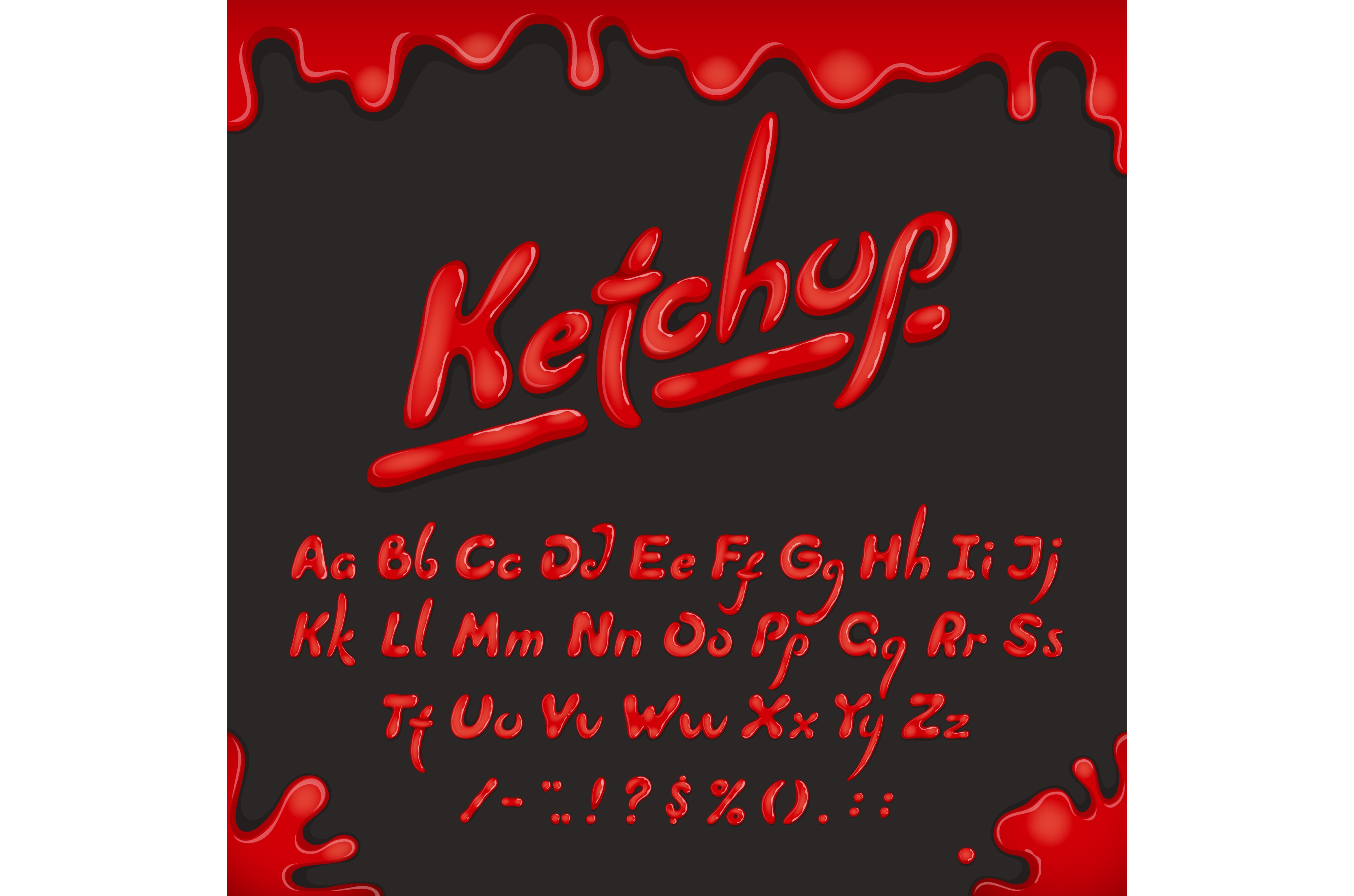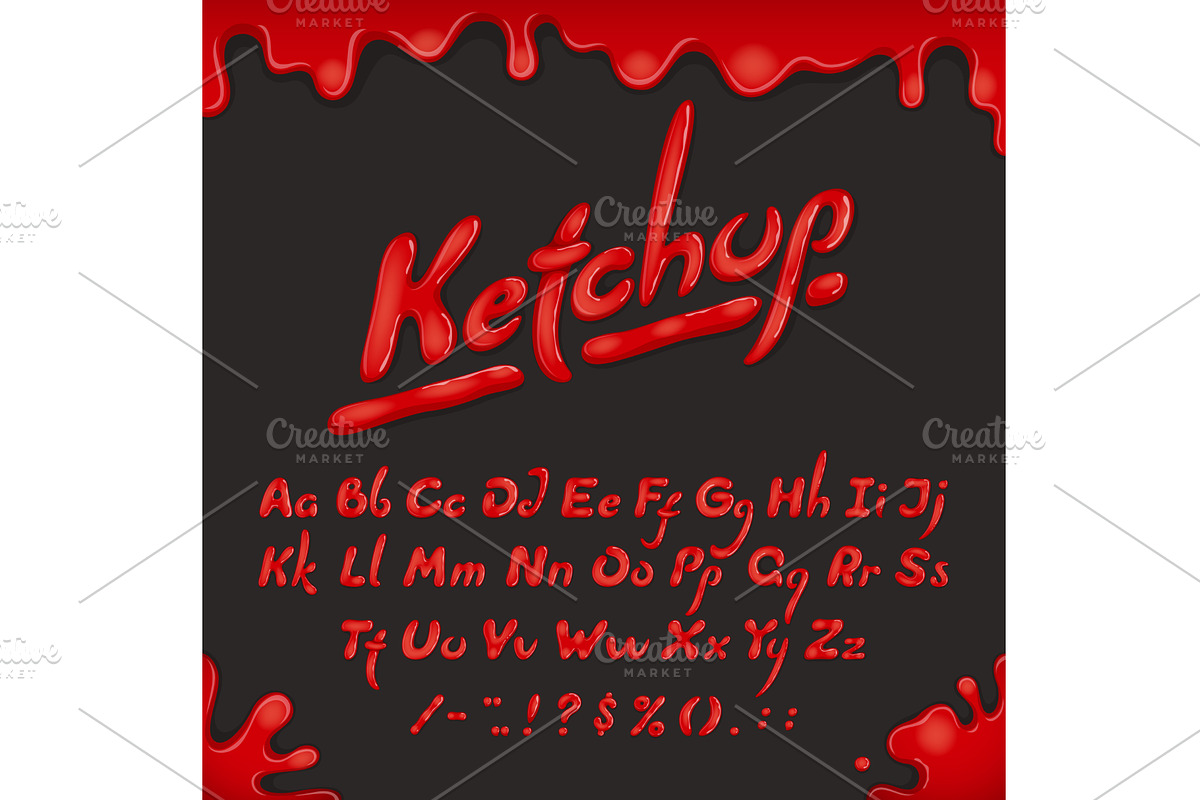
Ketchup font type, tomato sauce
Ketchup font type or typeface cooking alphabet of tomato sauce letters, vector typography. Ketchup font or tomato sauce liquid type, food text script of red paint splash with ABC alphabet letters